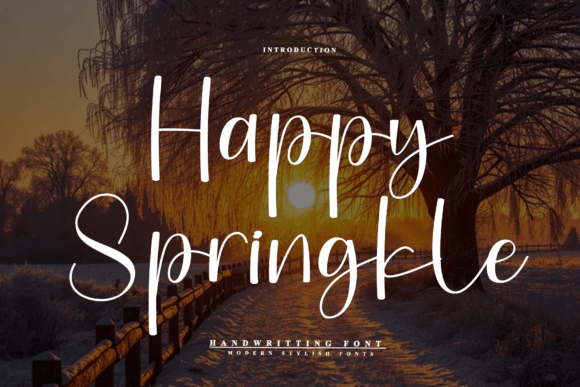
Discover the Magic of Happy Springkle Font
Have you ever stumbled upon a font that makes you feel like you’re doodling in a notebook as a child, but with a level of sophistication that elevates your design to the next level? For designers, finding that perfect font can be a game-changer. It’s a moment that sparks creativity and sets the tone for an entire project.
That’s where the Happy Springkle Font comes in – a lovely and timeless handwritten font that’s perfect for creating eye-catching logos, branding, and quotes. Its unique and beautiful touch will make your design come alive, giving you an edge over the competition. Whether you’re a seasoned designer or just starting out, Happy Springkle Font is a valuable addition to your toolkit.
Happy Springkle Font Key Features
- Font Family: Happy Springkle Font is a unique, hand-drawn script font family designed for various applications.
- Unique Characteristics: Features a playful, whimsical feel with intricate details and flourishes, perfect for adding a touch of personality to designs.
Happy Springkle Font Review
Overall, I think the Happy Springkle Font has some great qualities that make it a fun addition to any design project. ✨ Here are a few things that stand out to me:
- The font’s playful, whimsical feel is perfect for spring and Easter-themed designs.
- The characters are well-designed and visually appealing, with nice details and textures.
- The font’s versatility makes it suitable for a range of applications, from digital to print.
- The font may be too cursive or script-like for some projects, which could make it difficult to read in certain contexts.
- The font’s irregularities can sometimes make it challenging to use in complex layouts or large blocks of text.
- The font may not be suitable for formal or professional designs, as it’s more suited to casual or creative projects.
Overall, I think the Happy Springkle Font is a fun and creative choice for designers who want to add some personality to their projects. While it may have some limitations, it’s a great option for spring and Easter-themed designs or other projects that call for a playful, whimsical feel.
Tips for Getting the Most Out of the Happy Springkle Font
For best results, use the Happy Springkle Font in conjunction with bright and pastel colors.
Experiment with different font sizes and styles to create a unique look.
Use the Happy Springkle Font for titles, headings, and other emphasis text to add visual interest to your design.
The Happy Springkle Font is perfect for:
Cards and invitations for spring and summer events.
Food and beverage branding for desserts and treats.
Stationery and greeting cards for kids and families.